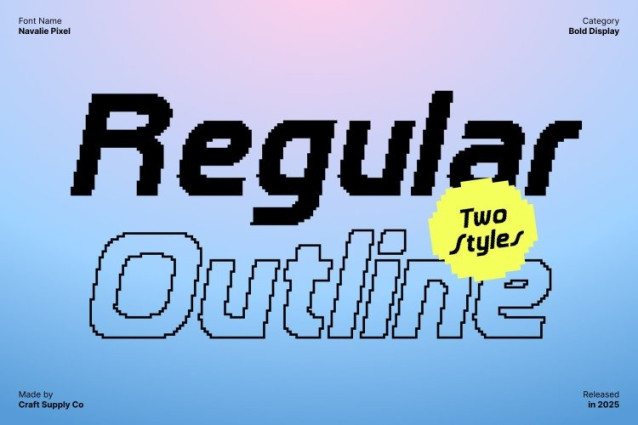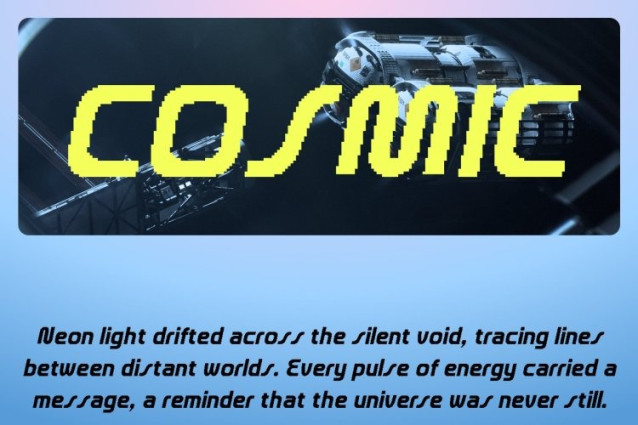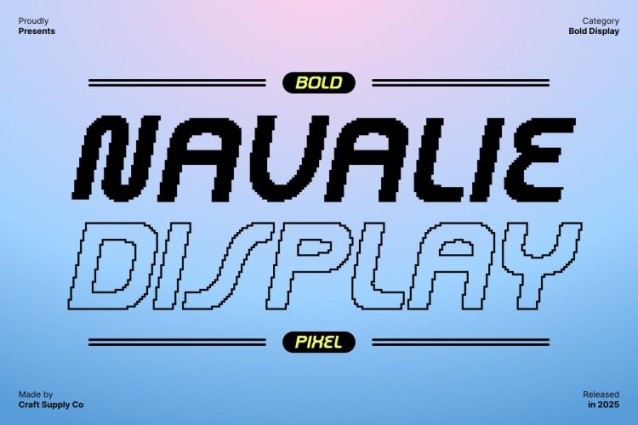
Navalie Pixel Font
Navalie Pixel Font This is a dynamic sans serif display font designed to convey strength, modernity, and forward-thinking energy. Its bold, geometric forms make a strong visual impact, perfect for designs that need to capture attention immediately. Each letter communicates confidence, precision, and contemporary style.
Techno-Inspired Design for Futuristic Appeal
Drawing inspiration from techno and digital aesthetics, this font features clean, structured lines that feel futuristic and energetic. Its sharp angles and strong proportions create a visually powerful font, ideal for projects aiming to showcase innovation, technology, and modern design sensibilities.
Pixel Style for Digital Edge and High-Tech Character
Enhanced with a pixel-inspired style, this font amplifies its futuristic and digital personality. The pixel detailing adds a modern, tech-forward flair, making the font perfect for digital branding, user interfaces, and any creative work that demands a contemporary digital identity.
Perfect for Branding, Logos, and Poster Designs
This font excels in projects where boldness and modernity are essential. Use it for branding, logos, posters, and other high-impact visual designs that require a sleek, futuristic, and digitally expressive font. Its techno-inspired shapes and pixel detailing ensure your projects convey energy, innovation, and cutting-edge style.